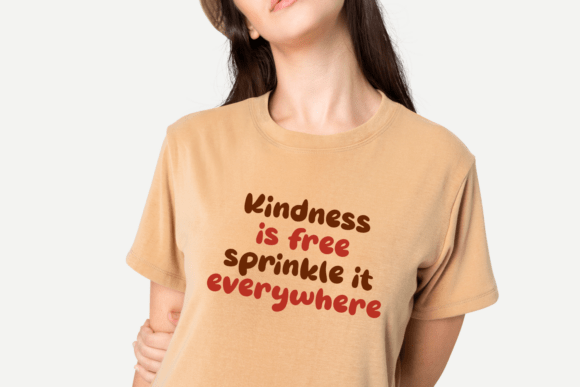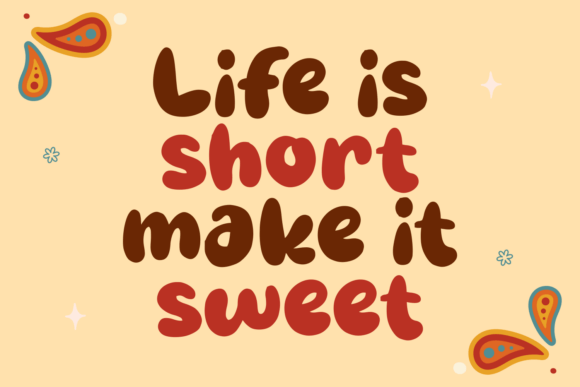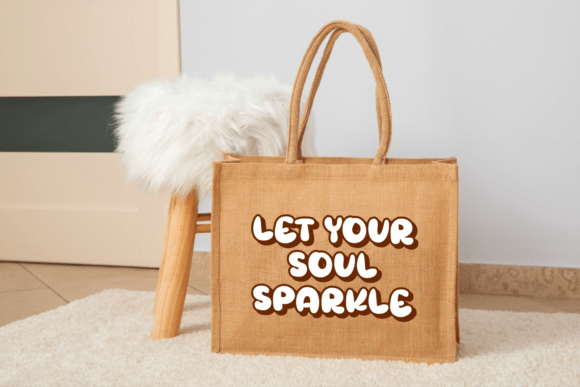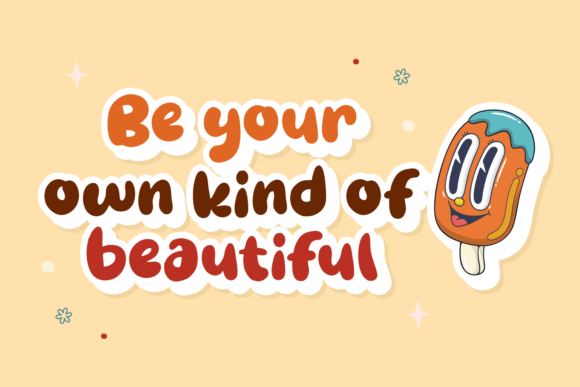
Introduction to Dewaji Kanti Font
Embrace the cozy side of retro with Dewaji Kanti, a chunky display typeface that captures a “warm-and-wonderful” soul.
This font features thick, ultra-rounded letterforms uniquely characterized by rhythmic, hand-drawn imperfections and a comforting, puffy structure that bridges the gap between nostalgic children’s books and modern artisanal branding With its massive structural weight and approachable personality, Dewaji Kanti is the premier choice for independent craft coffee labels, organic food packaging, boutique nursery decor, and high-impact “soft-and-sturdy” social media headers.
Key Features of Dewaji Kanti Font